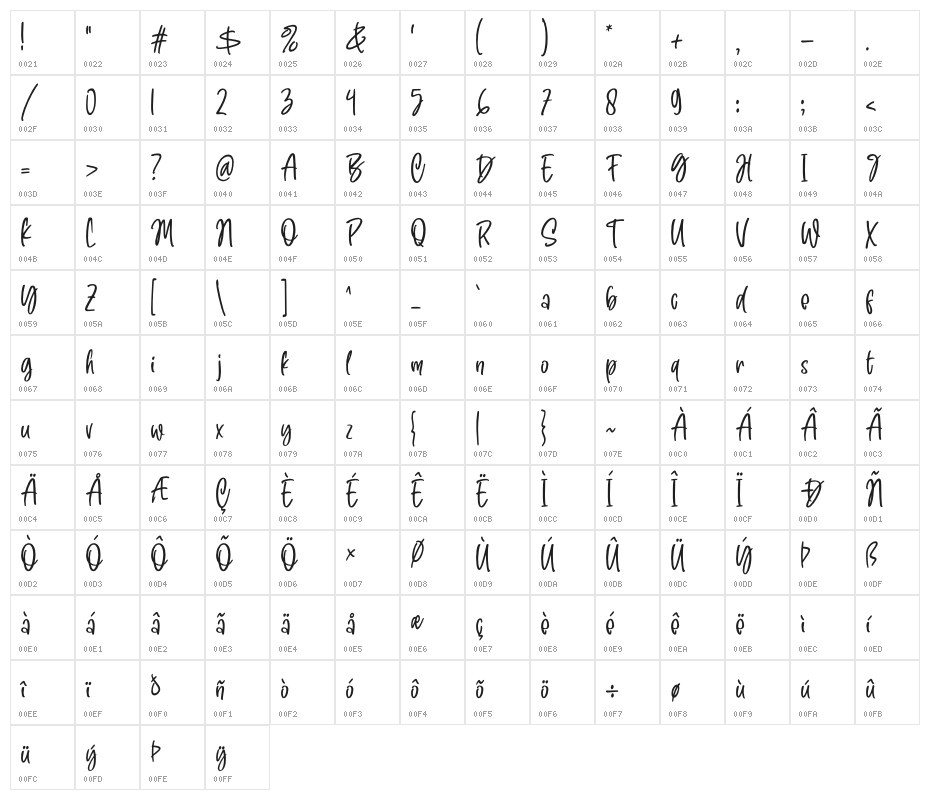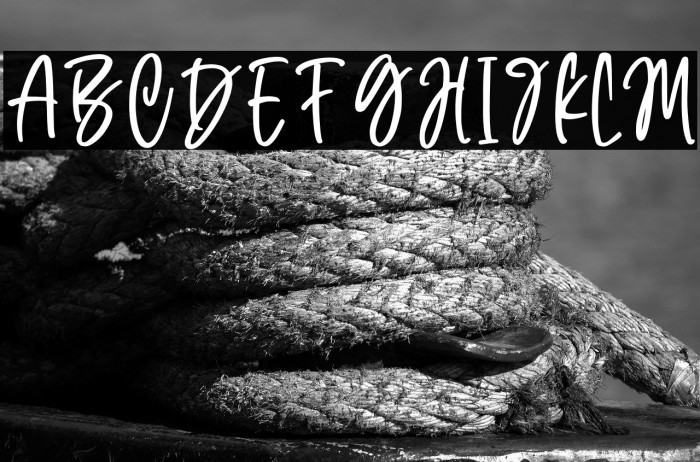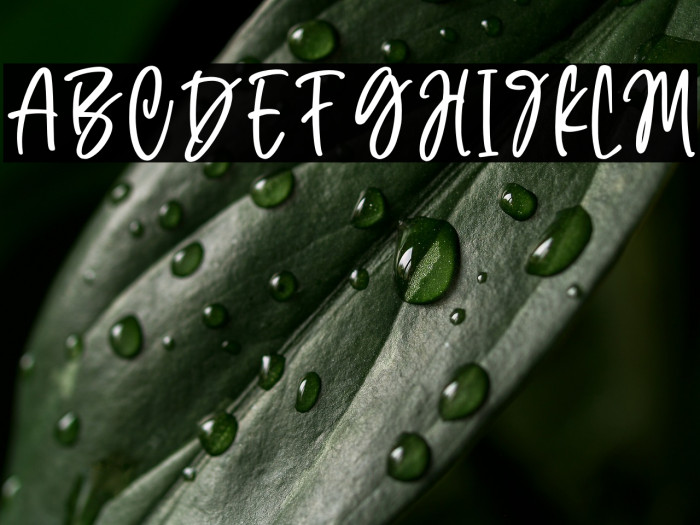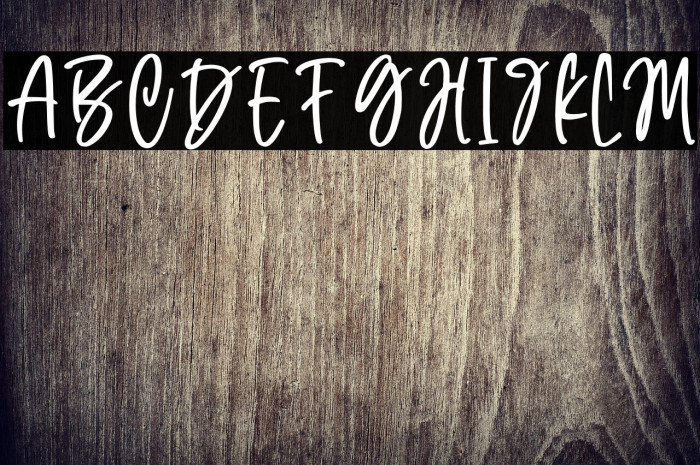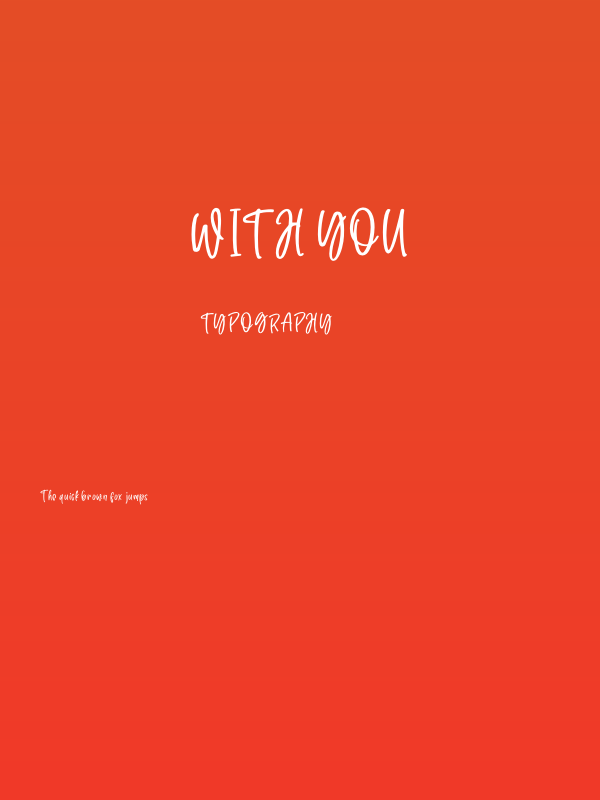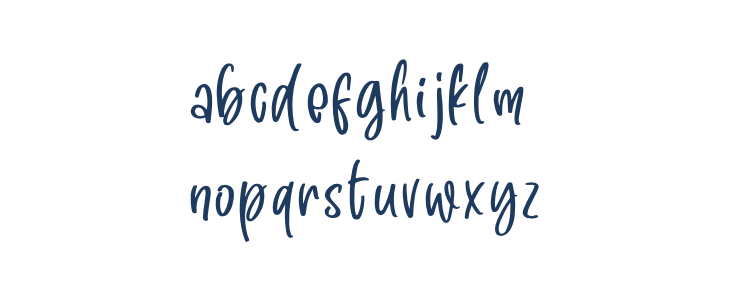
With You Font
With You Description
This font features a lively and expressive handwritten style, characterized by its fluid and dynamic strokes. The letters are slightly slanted, giving a sense of motion and energy. The uppercase letters are bold and prominent, while the lowercase letters maintain a consistent flow with a playful touch. The numbers and special characters are crafted with the same attention to detail, ensuring a cohesive look throughout. This font exudes a personal and informal vibe, making it ideal for projects that require a touch of personality and warmth.